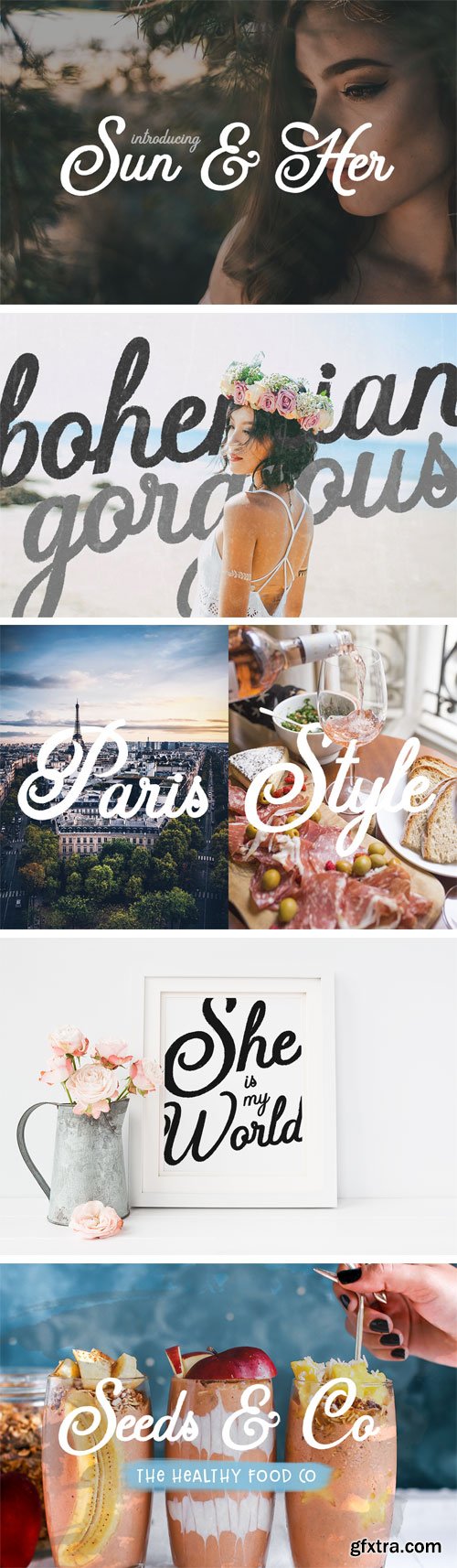
Sun & Her Font
Sun & Her is a gorgeous handwritten rough script font. It’s perfect for branding, logo design, merchandise, social media posts and so much more. The font comes in OTF, TTF, including Web Font formats.